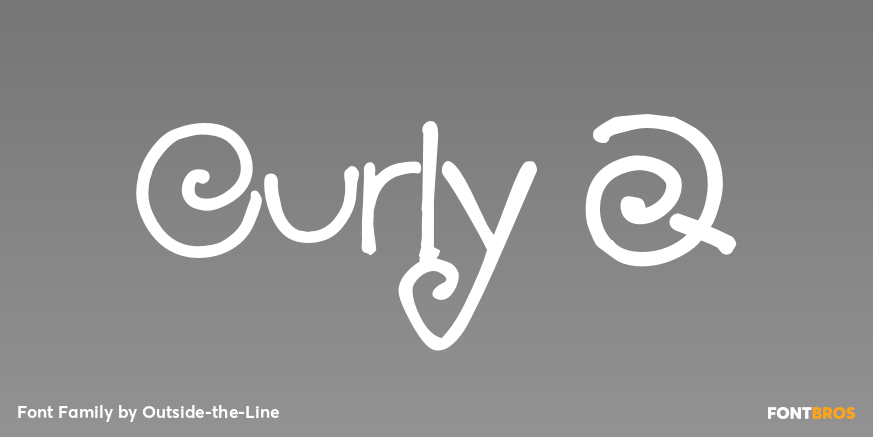
HomeFont BrosHandwrittenCurly Q HandwrittenScripts: CasualWacky Curly Q FacebookXPinterestWhatsApp 1 of 1 About Curly Q new from Rae Kaiser and Outside the Line. A curly, swirly, girly kind of font. A delightful headline font for your next garden party or note to the kids from the tooth fairy.  DOWNLOAD NOW People also explored Bertone Font Delinhas Font Soulmate Fullo Font Breadfast Font Mod Monograms Pink Flamingo Choco Banana Font Gingle Snowland Font Hunte Medium Font 280 0 TagsCurly QCurly Q Font Previous articleRoadbrushNext articleValeson LEAVE A REPLY Cancel reply Comment: Please enter your comment! Name:* Please enter your name here Email:* You have entered an incorrect email address! Please enter your email address here Website: Save my name, email, and website in this browser for the next time I comment. Personal Use Free Burnstown Dam Personal Use Free Read more about this font Remember Personal Use Free Read more about this font Vexler Slip Personal Use Free Read more about this font Rogueland Personal Use Free Read more about this font BLOG Free vs Paid Fonts: Why Investing in Premium Fonts Is Worth It Free vs Paid Fonts: Why Premium Fonts Are Worth It in 2025 The debate of free vs paid fonts continues in the design world. While... Using Fonts in Digital Marketing: Tips to Strengthen Your Brand Identity Elegant Wedding Invitation Fonts – Handwritten & Script Fonts Best Fonts for T-Shirt Design – Top 2025 Picks